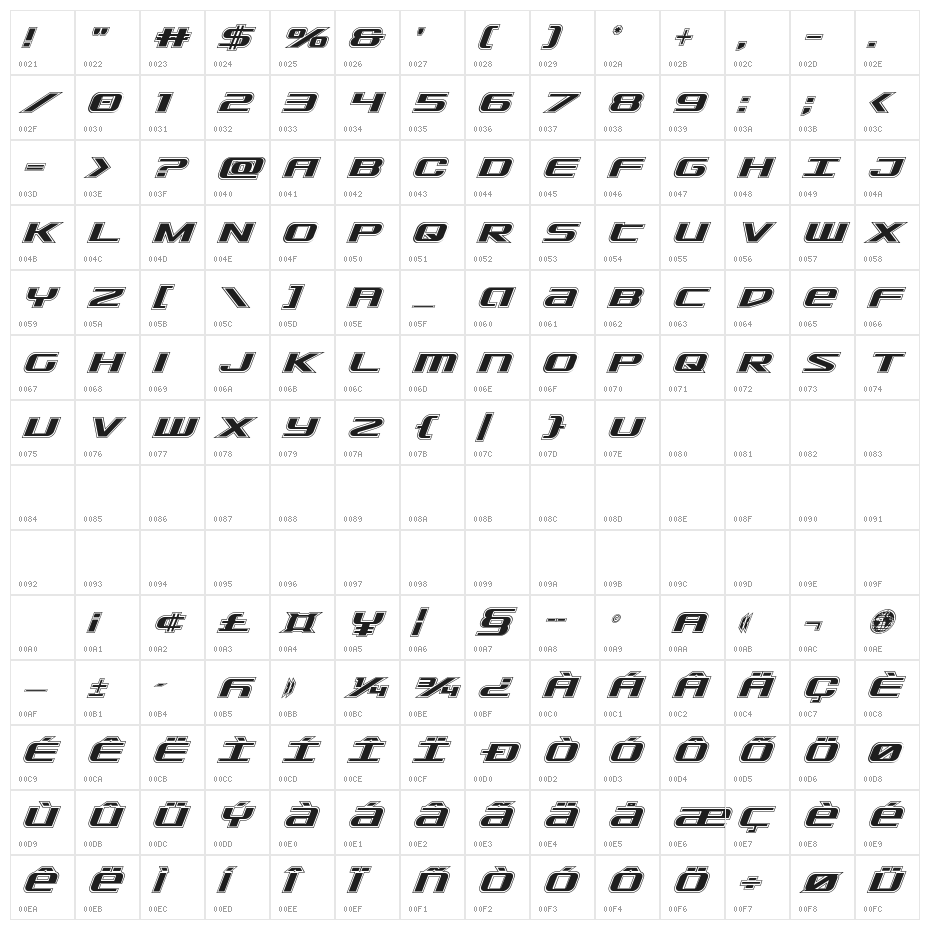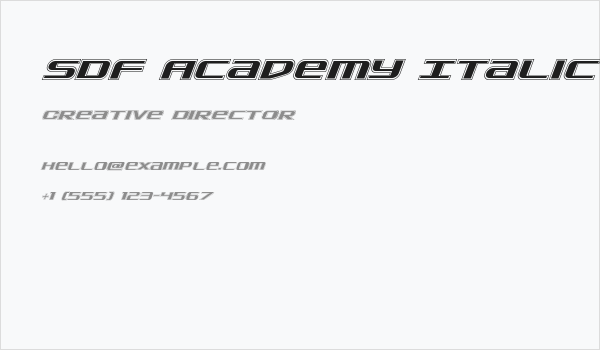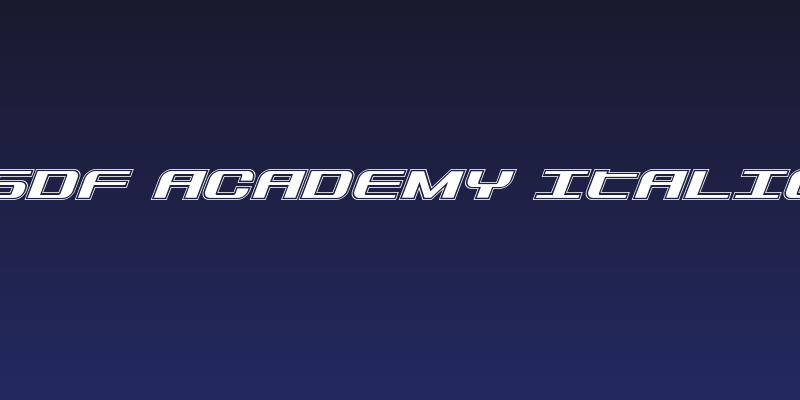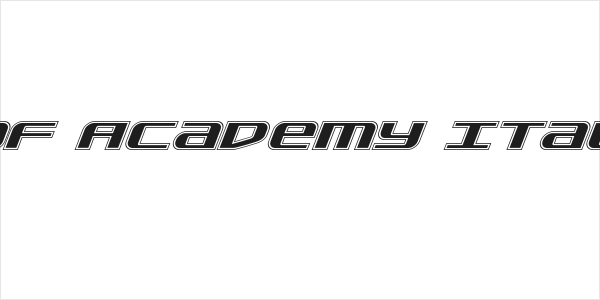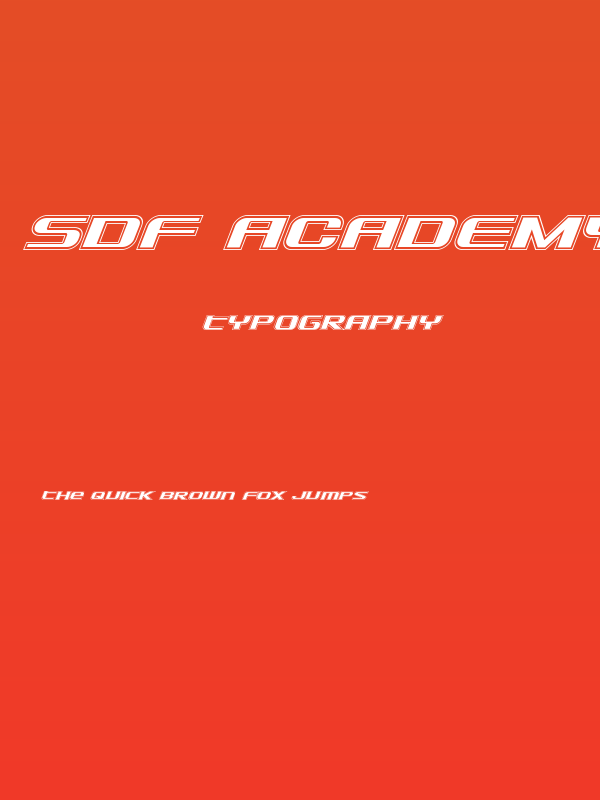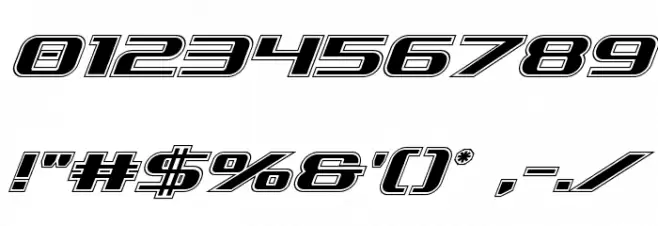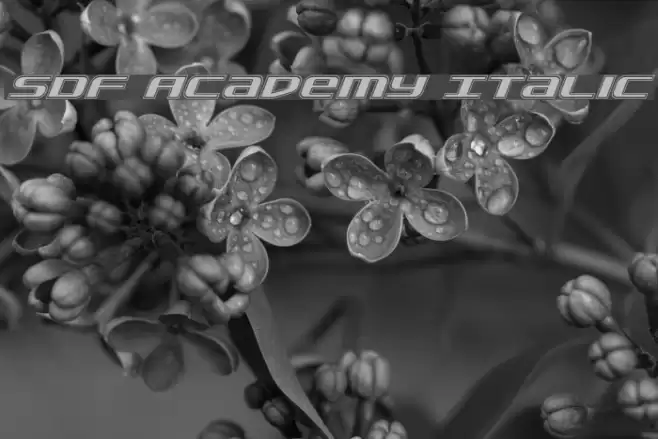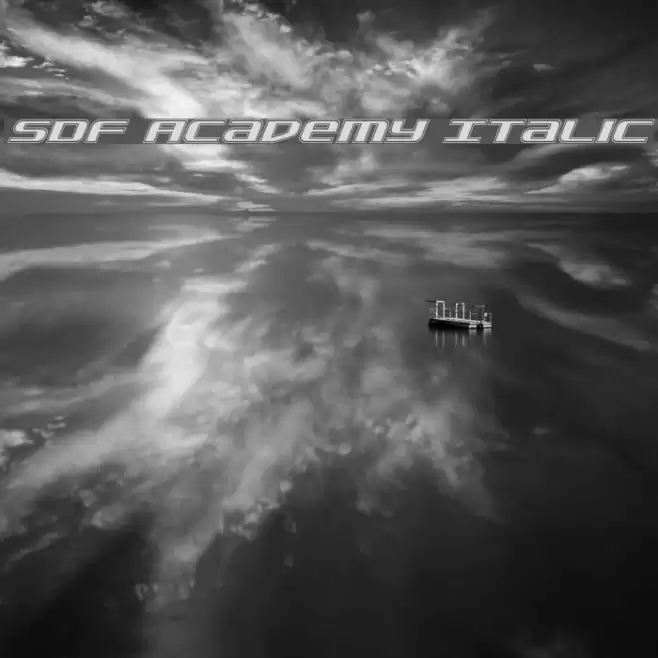
SDF Academy Italic Font
This font features a bold, italicized style with a futuristic and sporty appearance. The characters are outlined with a double line effect, giving them a three-dimensional look. The uppercase and lowercase letters maintain a consistent slant, enhancing the dynamic feel. The numbers and special characters follow the same design, ensuring uniformity across all glyphs. The font's geometric shapes and sharp angles contribute to its modern aesthetic, making it suitable for projects that require a sleek and energetic vibe.